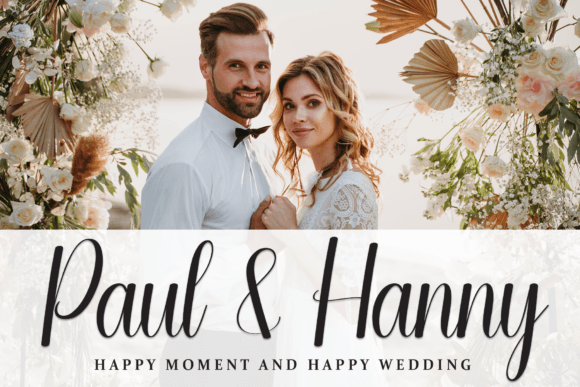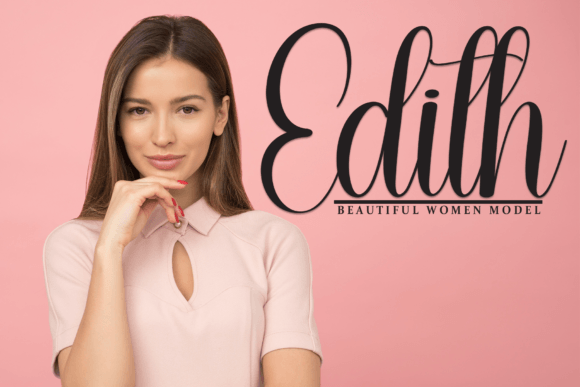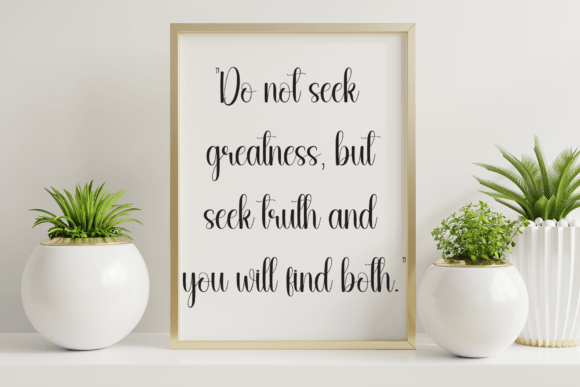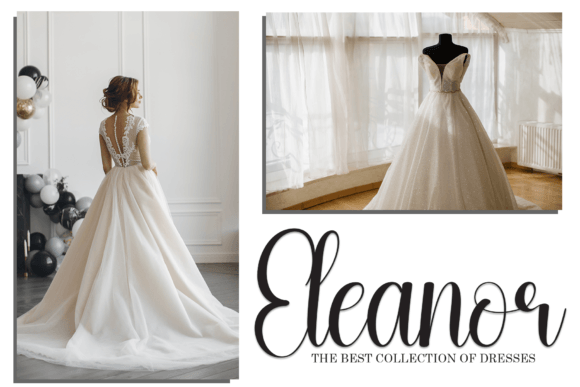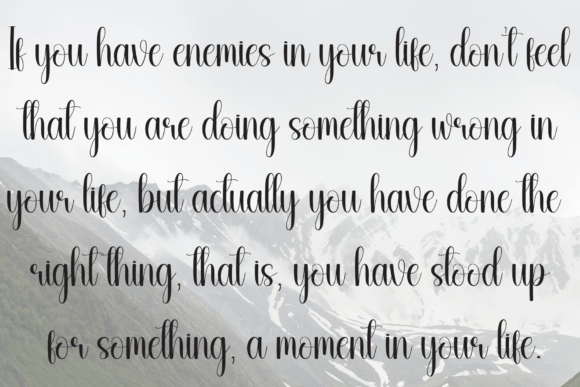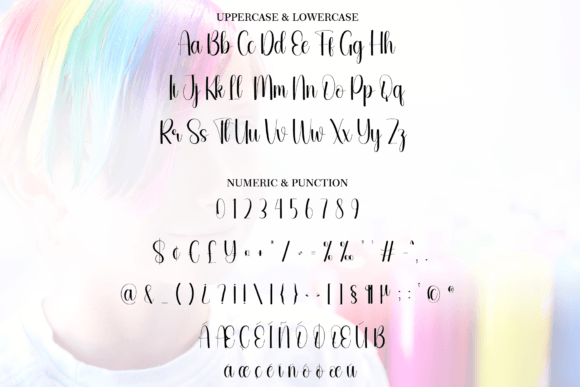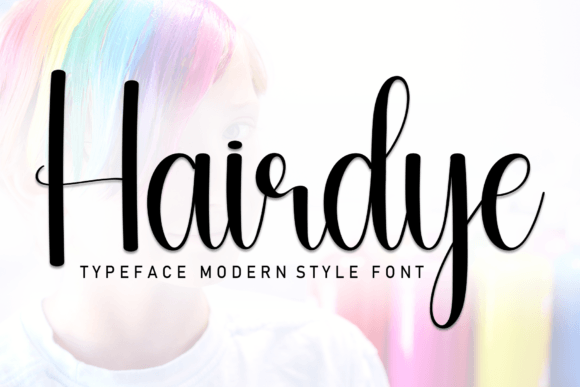
Hairdye Font: Add a Sweet and Friendly Touch to Your Designs
Are you looking for a font that can add a fresh and cute touch to your designs? Look no further than Hairdye Font! This sweet and friendly handwritten font is perfect for creating wedding invitations, cards, and other designs that require a fun and playful vibe. In this article, we’ll take a closer look at Hairdye Font, its features, and how you can use it to elevate your designs.
What is Hairdye Font?
Hairdye Font is a beautiful handwritten font that is designed to bring a touch of sweetness and friendliness to your designs. Its fresh and cute style makes it perfect for a variety of projects, from wedding invitations and cards to posters, flyers, and more. Whether you’re a designer, crafter, or DIY enthusiast, Hairdye Font is a great addition to your font collection.
Key Features of Hairdye Font
- Handwritten style: Hairdye Font has a beautiful handwritten style that gives it a personal and unique touch.
- Sweet and friendly: The font has a sweet and friendly vibe that makes it perfect for designs that require a playful touch.
- Fresh and cute: Hairdye Font is fresh and cute, making it ideal for designs that require a youthful and vibrant feel.
- Easy to read: Despite its playful style, Hairdye Font is easy to read, making it perfect for body text and headings.
- Versatile: Hairdye Font can be used for a variety of projects, from wedding invitations and cards to posters, flyers, and more.
How to Use Hairdye Font in Your Designs
Hairdye Font is easy to use in your designs, and here are a few ideas to get you started:
- Wedding invitations: Hairdye Font is perfect for wedding invitations, adding a touch of sweetness and romance to your design.
- Cards: Use Hairdye Font to create beautiful and playful cards for birthdays, anniversaries, and other special occasions.
- Posters and flyers: Hairdye Font is great for posters and flyers, adding a fresh and youthful touch to your design.
- Social media graphics: Use Hairdye Font to create engaging social media graphics that are sure to grab attention.
Why Designers and Crafters Love Hairdye Font
Designers and crafters love Hairdye Font for several reasons:
- Unique style: Hairdye Font has a unique and playful style that sets it apart from other fonts.
- Easy to use: Hairdye Font is easy to use, even for those who are new to design.
- Versatile: Hairdye Font can be used for a variety of projects, making it a great addition to any font collection.
- High-quality: Hairdye Font is a high-quality font that is designed to deliver great results.
Tips for Using Hairdye Font Effectively
Here are a few tips for using Hairdye Font effectively in your designs:
- Use it sparingly: While Hairdye Font is beautiful, it’s best to use it sparingly to avoid overwhelming your design.
- Pair it with other fonts: Hairdye Font pairs well with other fonts, so don’t be afraid to experiment with different combinations.
- Experiment with colors: Hairdye Font looks great in a variety of colors, so experiment with different colors to find the one that works best for your design.
Hairdye Font is a beautiful and versatile font that is perfect for designers and crafters who want to add a sweet and friendly touch to their designs. With its fresh and cute style, Hairdye Font is ideal for a variety of projects, from wedding invitations and cards to posters, flyers, and more. Whether you’re a seasoned designer or just starting out, Hairdye Font is a great addition to your font collection.